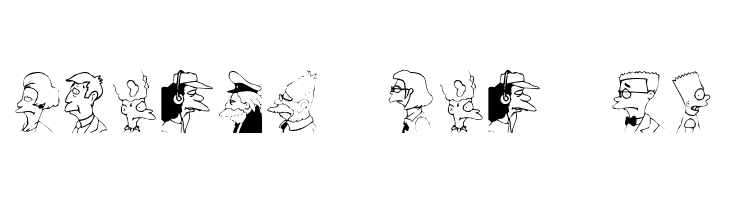
( Fonts by Haslinda Adnan )
Decorative display font with integrated portrait illustrations in each letter.
( Michael Gaines )
Illustrative font with each glyph as a woman's portrait.
( Rasdesign - Rodrigo Araya Salas - www.behance.net/rasdesign )
Hand-drawn decorative dingbat font with abstract portraits and symbols.
( Behind The Sun - yokohama.cool.ne.jp/behindthesun/ )
Portrait-based display font using women's faces as glyphs.
( JNK Originals - formerly www.jnkoriginals.com, now defunct )
A decorative font with a patriotic theme, featuring historical portraits and flag elements.
( LeChefRene - members.aol.com/lcrfonts/ )
Decorative illustrated portraits of American presidents with nameplates.
( MPG Graphics - www.mpglighting.com )
A pictorial decorative font featuring stylized female portraits.
A display font composed of illustrated portrait glyphs instead of traditional letterforms.
Expressive, hand-drawn portraits form each character in this decorative font.
A display font using illustrated portraits for each character.
Decorative font featuring cybernetic-themed illustrated portraits for each character.
An artistic font with elongated features and a modern, elegant style.
( Fonts by Rick Montgomery )
Cartoon character dingbat font with bold, outlined faces.
( Fonts by Astigmatic One Eye Typographic Institute - Brian J. Bonislawsky - astigmatic.com )
Expressive illustrated faces form each character in a bold, decorative style.
( Fonts by www.vicfieger.com )
A playful, character-based decorative font inspired by anime and manga.
( Fonts by www.alphabetype.it )
A decorative, sci-fi themed display font with character illustrations and bold sans-serif text.
A decorative dingbat font with hand-drawn illustrations and symbols.
An illustrative and decorative font composed of detailed images instead of traditional characters.
A dingbat font featuring diverse line art vector illustrations.
Whimsical, cartoon character-based decorative font.
Illustrative dingbat font with art and artist-themed icons.
A symbol and dingbat font with scientific, geometric, and illustrative motifs.
Hand-drawn, face-themed decorative font with unique illustrations for each character.
A decorative, illustrated font featuring vintage comic-style portraits and scenes.
Highly decorative font using illustrated faces and objects as glyphs.
Illustrative display font using human figures as glyphs.
Decorative font with illustrated faces and head profiles.
Hand-drawn caricature font with unique illustrated faces for each character.
Illustrative, face-themed decorative display font.
A display font made up of hand-drawn faces and caricatures.